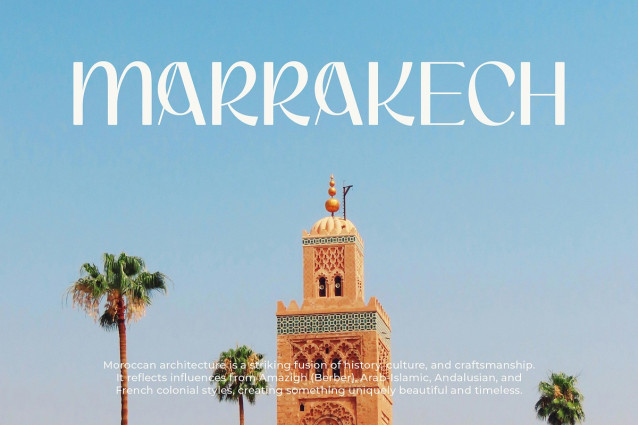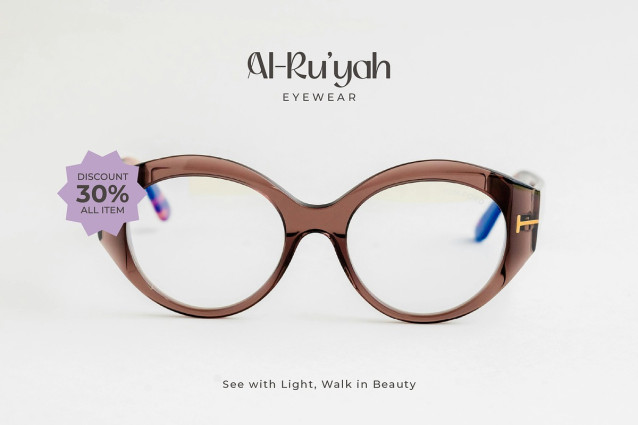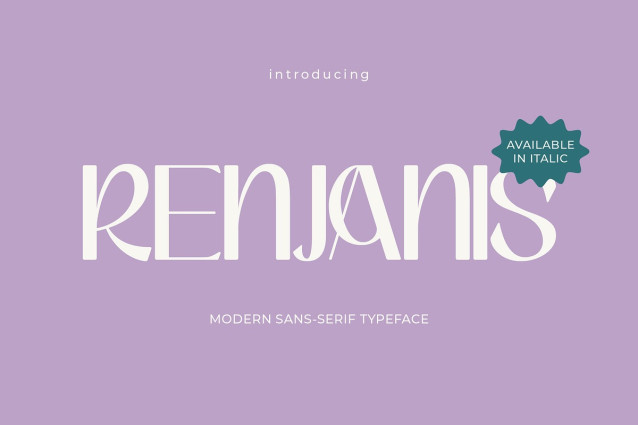
Renjanis Font
Renjanis Font is a playful sans serif font with a warm, modern vibe. With clean lines and rounded edges, it’s perfect for anything that needs a touch of fun—think kids’ magazines, greeting cards, posters, stickers, and packaging.It’s easy to read, super versatile, and brings a friendly feel to both print and digital projects.